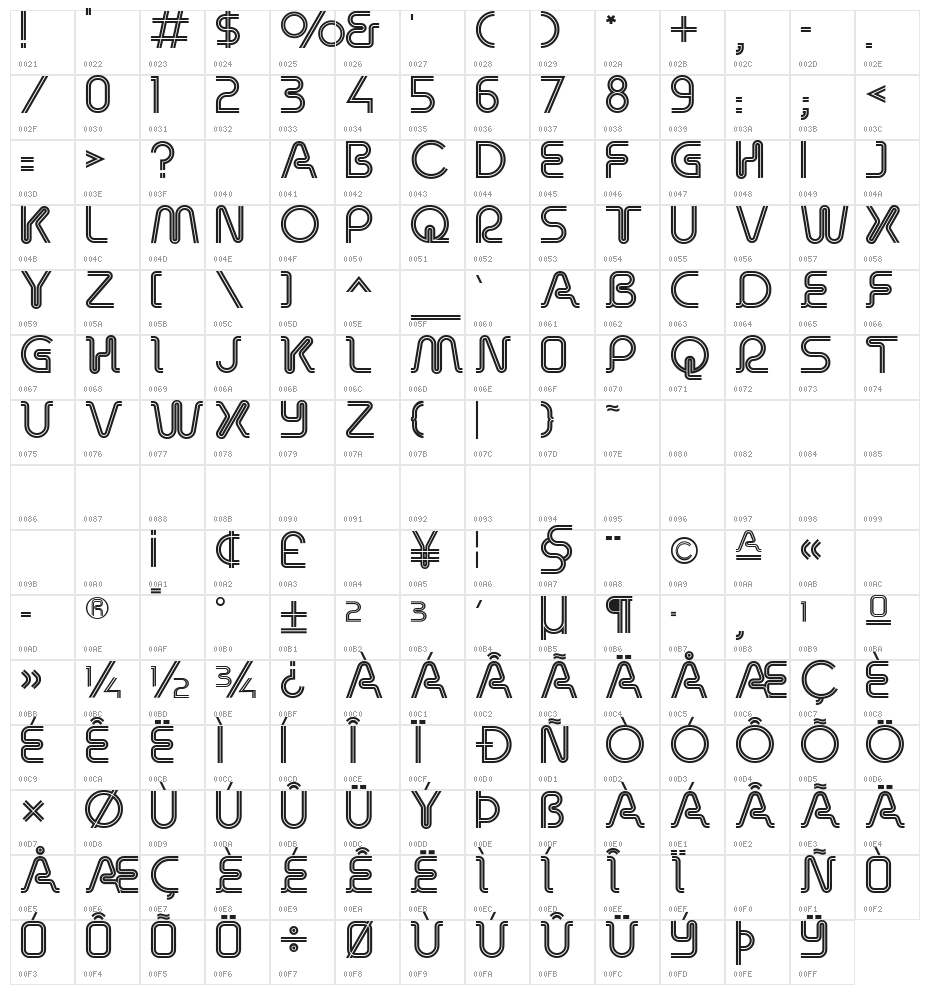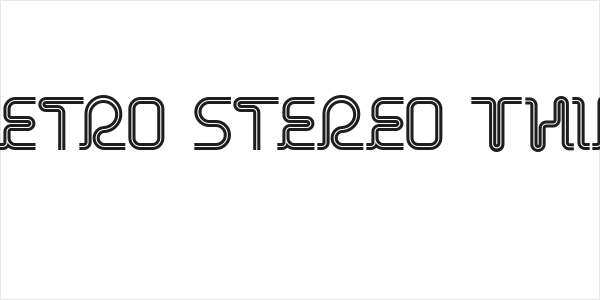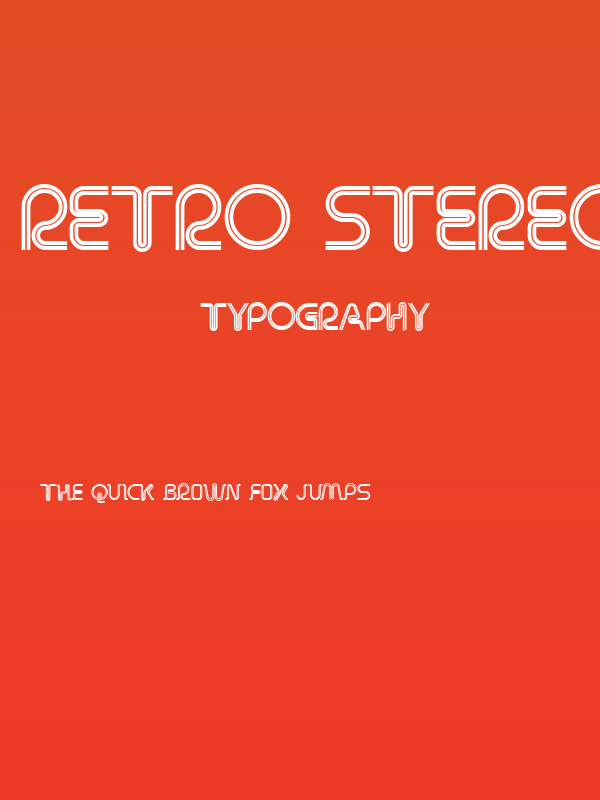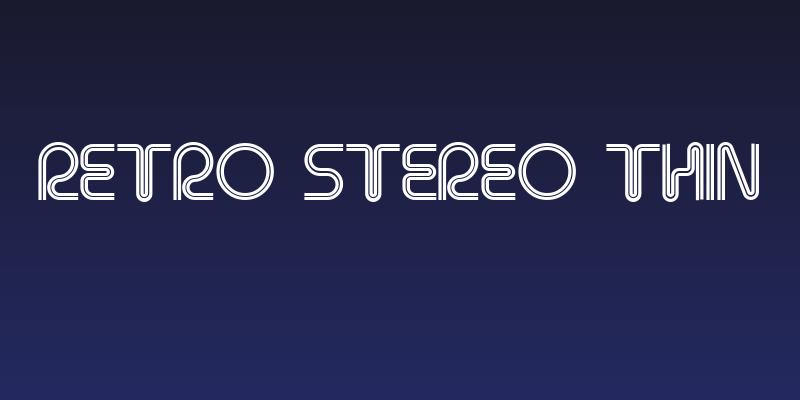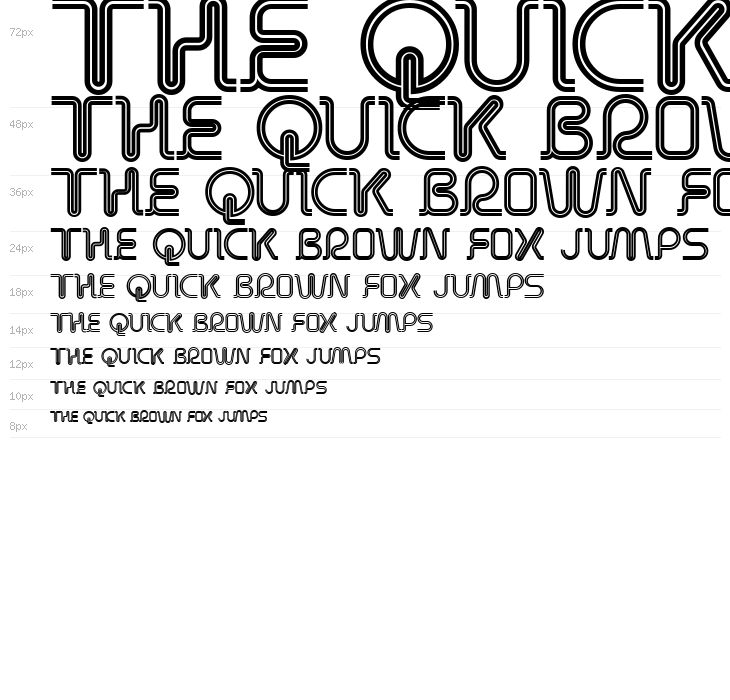
Retro Stereo Thin Font
Retro Stereo Thin Description
This font features a distinct retro-futuristic style with a thin, outlined design. The characters are composed of parallel lines that create a stereo effect, giving it a unique and eye-catching appearance. The uppercase and lowercase letters maintain a consistent geometric structure, with rounded edges and a uniform line thickness. Numbers and special characters follow the same design principles, ensuring a cohesive look across all glyphs. The font's aesthetic is reminiscent of vintage sci-fi and electronic themes, making it ideal for projects that require a touch of nostalgia and modernity.
| Overall Style | Retro, Futuristic |
| Proposed Projects | Ideal for retro-themed posters, sci-fi book covers, electronic music album art, and vintage-style branding. |